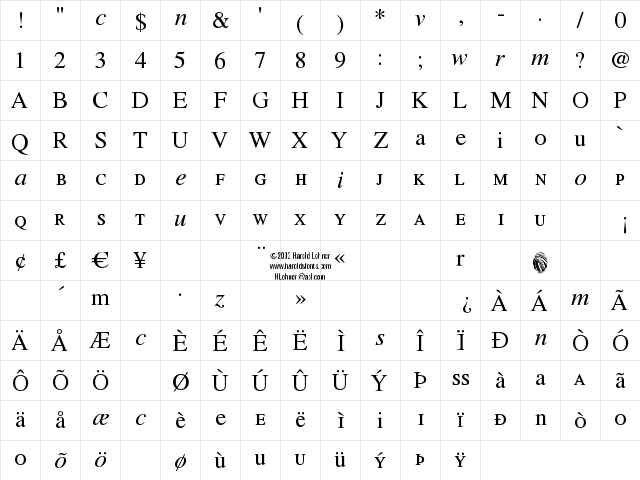
Will&Grace Regular
Design Context for Will&Grace Typeface
Will&Grace takes a measured approach to typography — its balanced proportions and neutral character make it a reliable workhorse for both digital and print work.